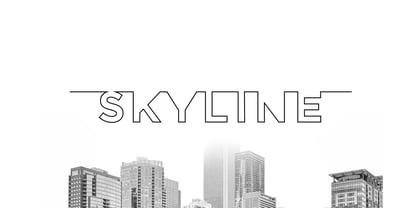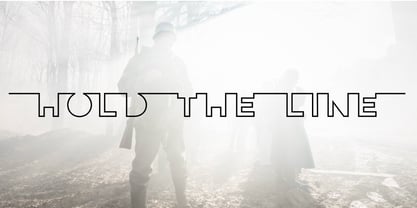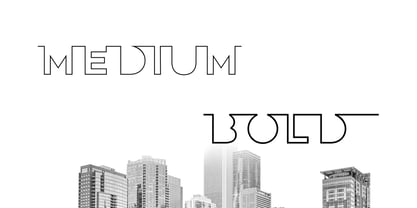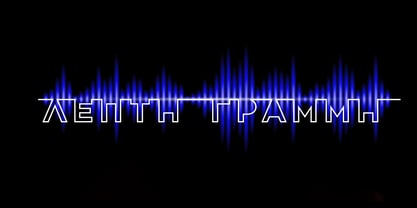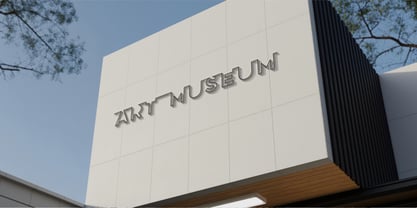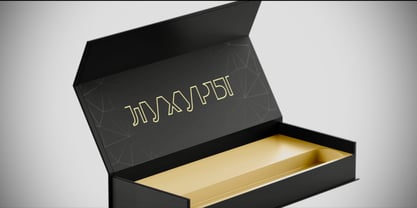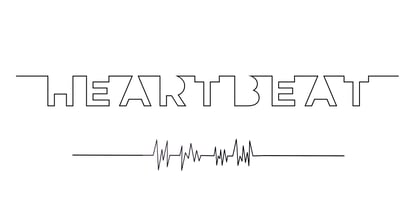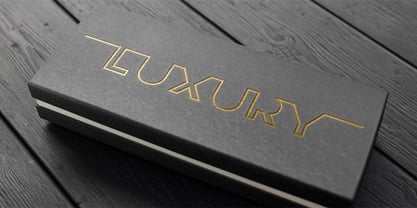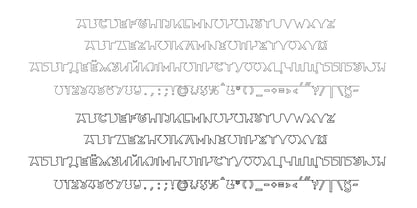
Hold the line
by Joanna Vu
The Hold the line Font Family was designed by Ioanna Ladopoulou and published by Joanna Vu. Hold the line contains 2 styles and family package options.
"Hold the Line" is a unique, minimal font, designed in a way that it creates the illusion of a skyline. Simple yet unusual, it is guaranteed to make your projects "pop". Due to its distinctive style, it is particularly ideal for logos, posters, covers, anything that needs to make an impact.
"Hold the Line" supports most Latin-derived languages as well as Greek and Cyrillic. Available in two weights.
About Joanna Vu
Joanna Vu is a one-woman design studio, located in Xanthi, Greece. Originally an illustrator, at some point in my artistic career I was captivated by lettering, the flow and form of the lines. Naturally, I became particularly interested in creating fonts. The idea of making unique something so restrictive, is the ultimate challenge for me.My goal since, is to make the world a happier place, one font at a time! I am particularly interested in Greek and Cyrillic characters, as I feel there is a shortage out there.